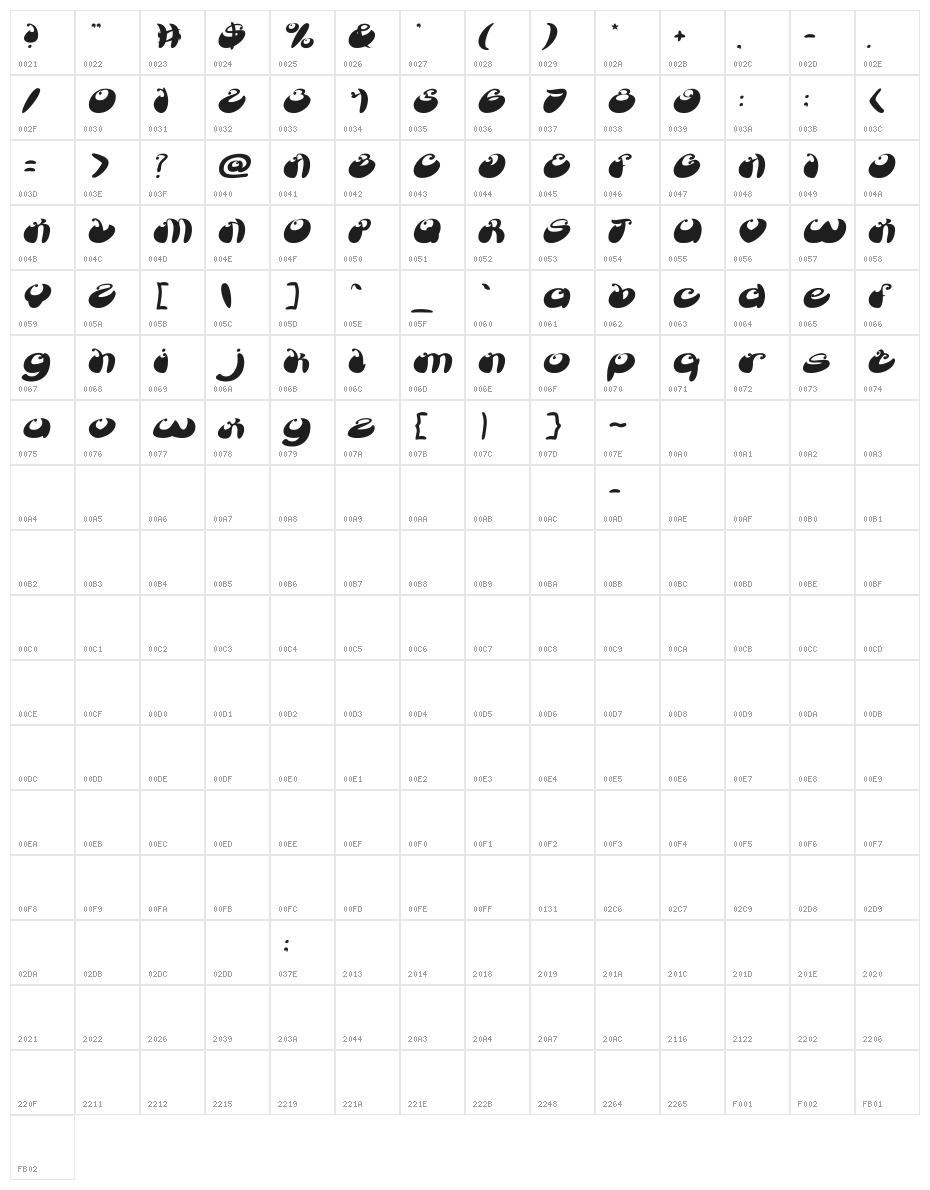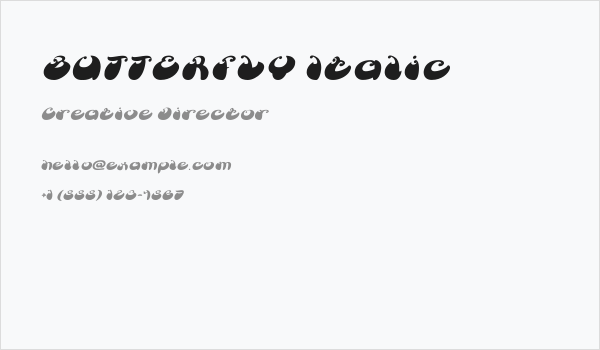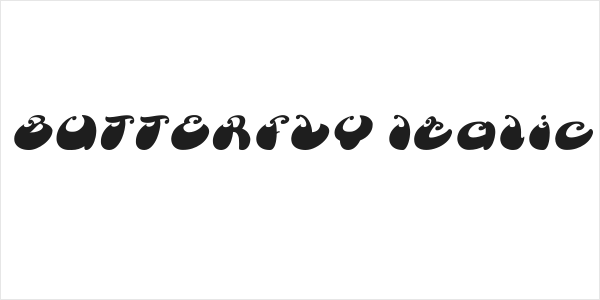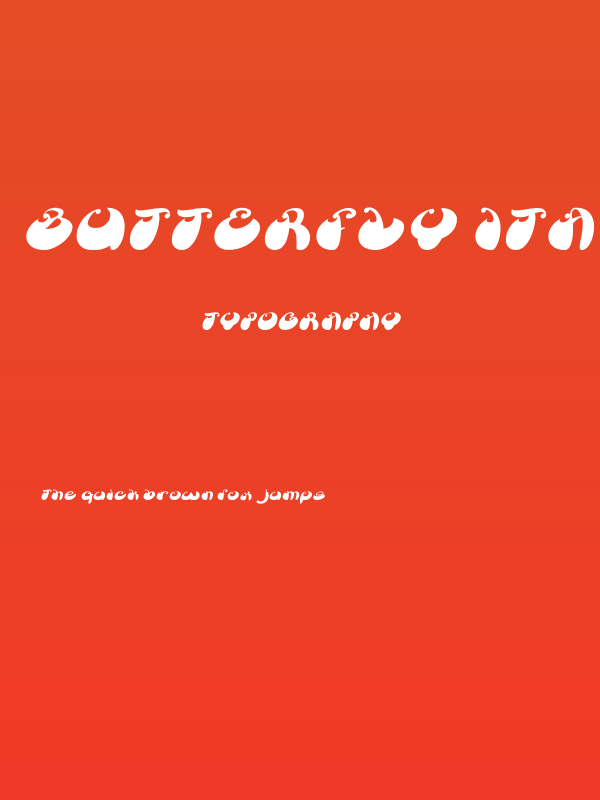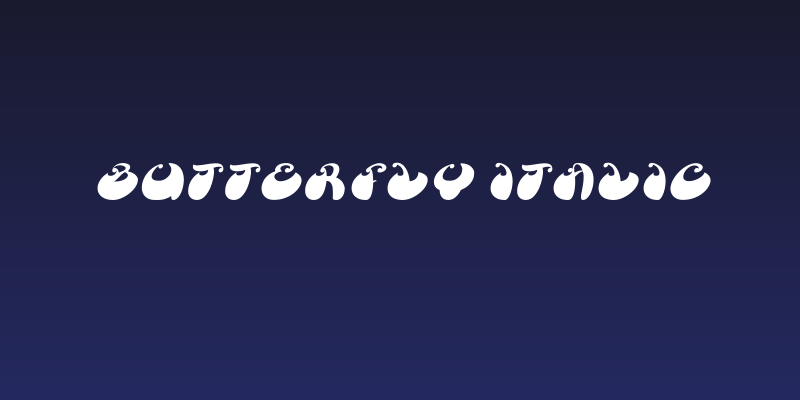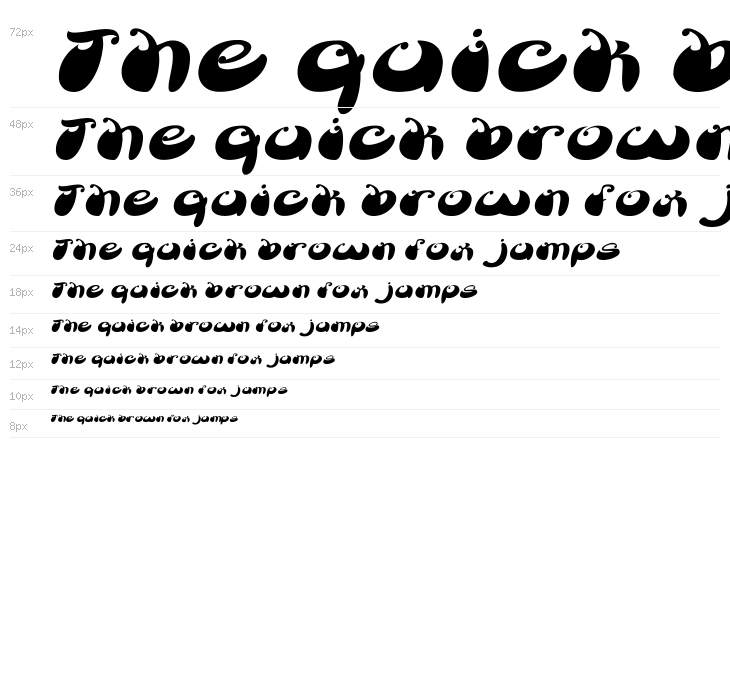
BUTTERFLY Italic Font
BUTTERFLY Italic Description
This font features a playful and whimsical design, characterized by its bold, rounded shapes and exaggerated curves. The letters have a unique, bubbly appearance with a consistent italic slant, giving it a dynamic and lively feel. The strokes are thick and uniform, contributing to a high contrast between the characters and the background. Each character is distinct, with a sense of motion and fluidity, making it ideal for creative and informal applications. The font includes a full set of uppercase and lowercase letters, numbers, and a variety of special characters, all maintaining the same playful style.